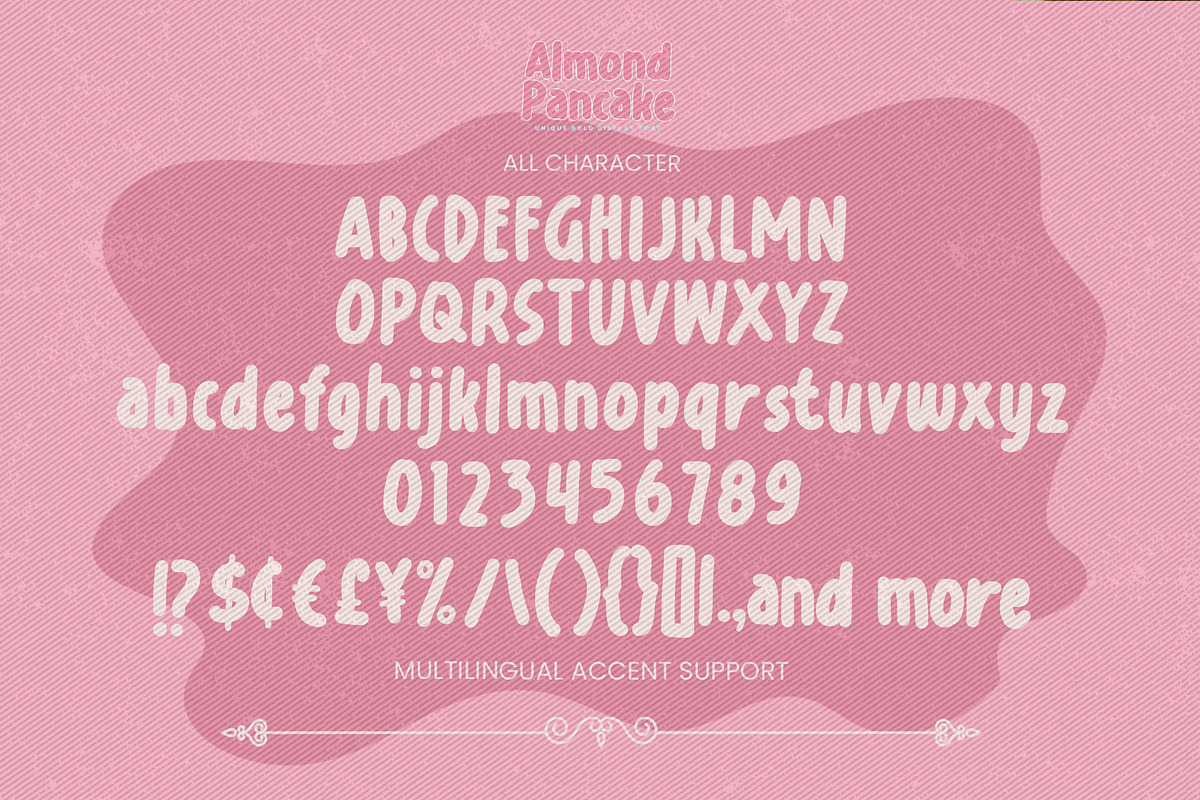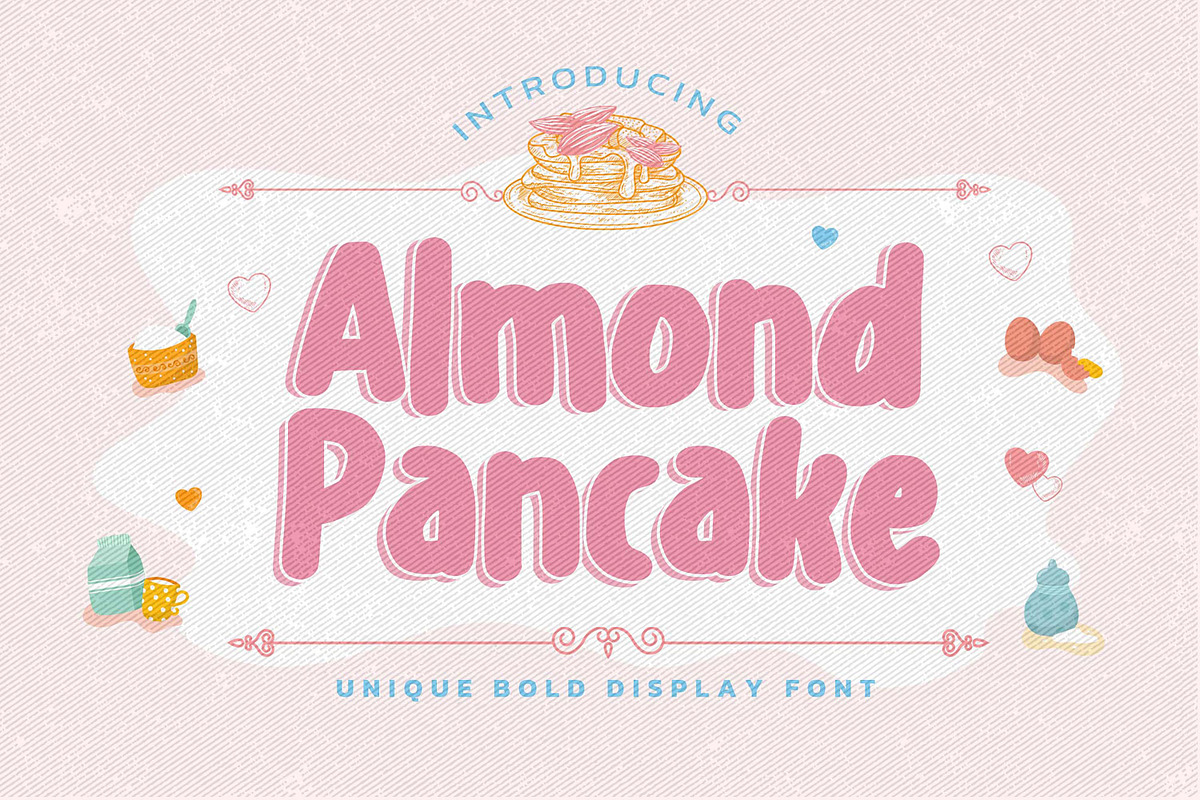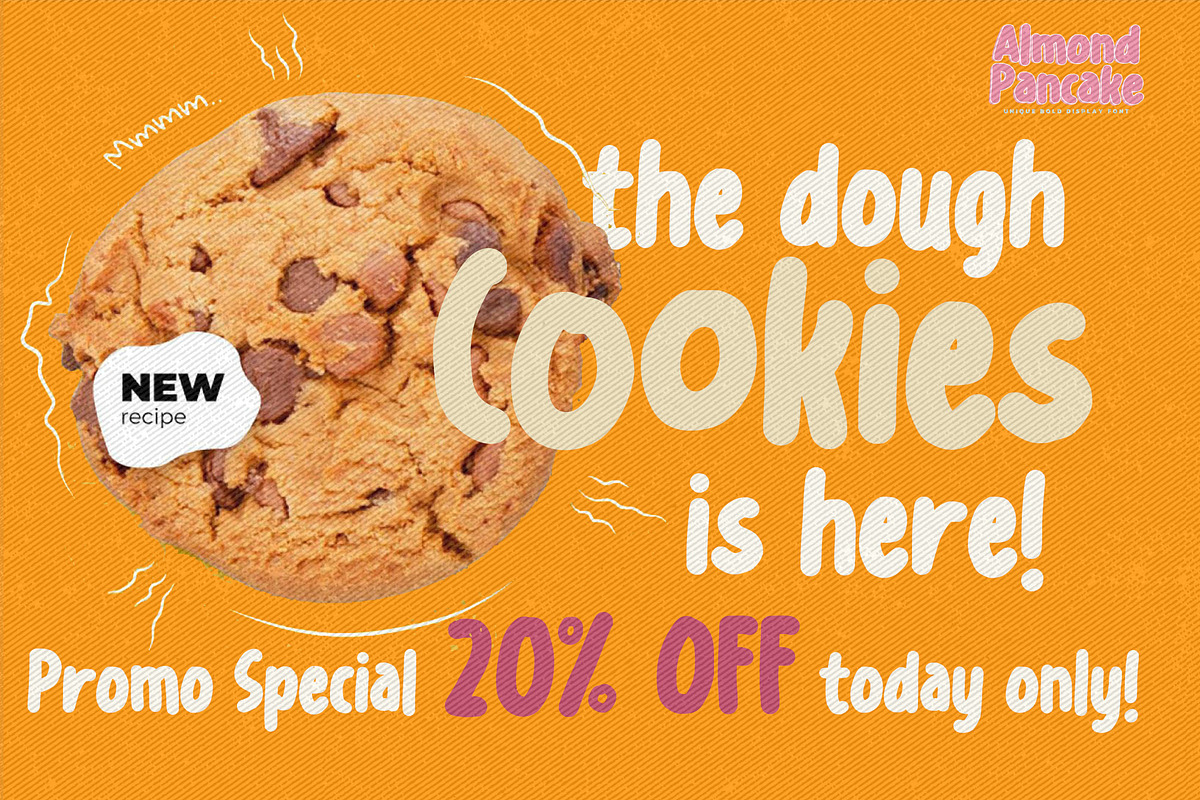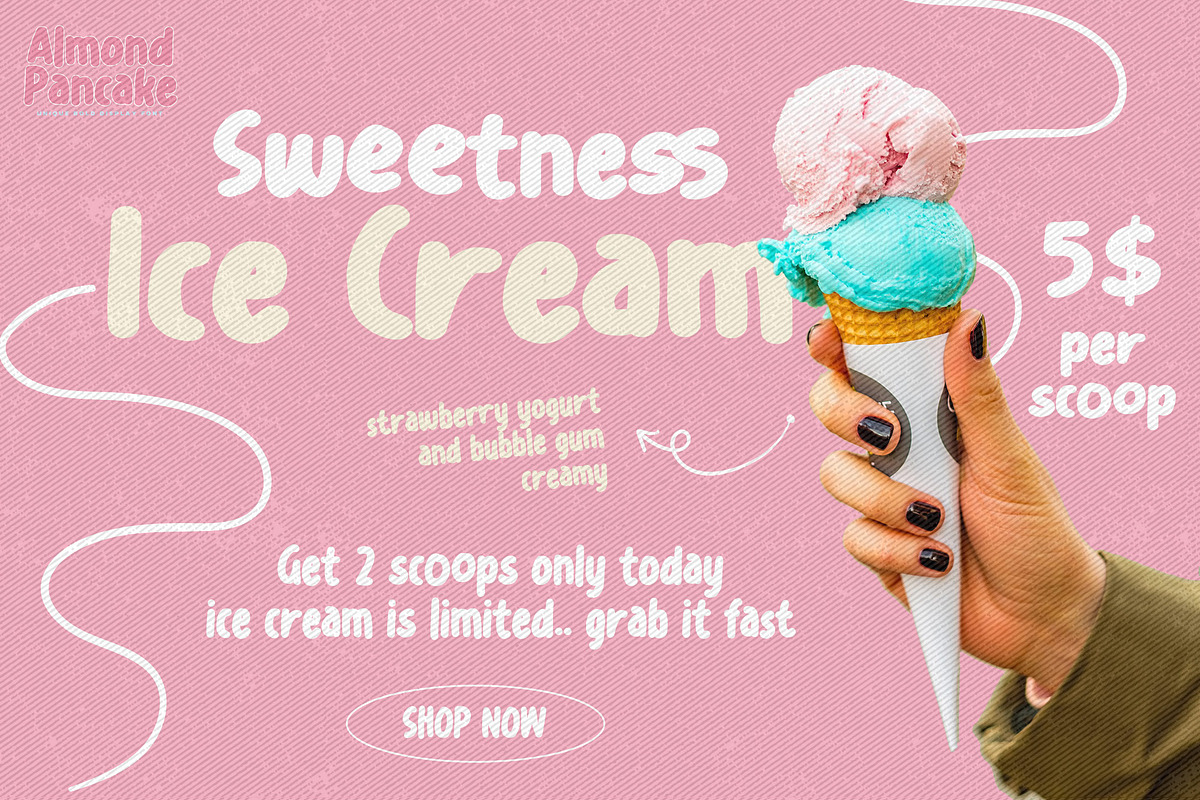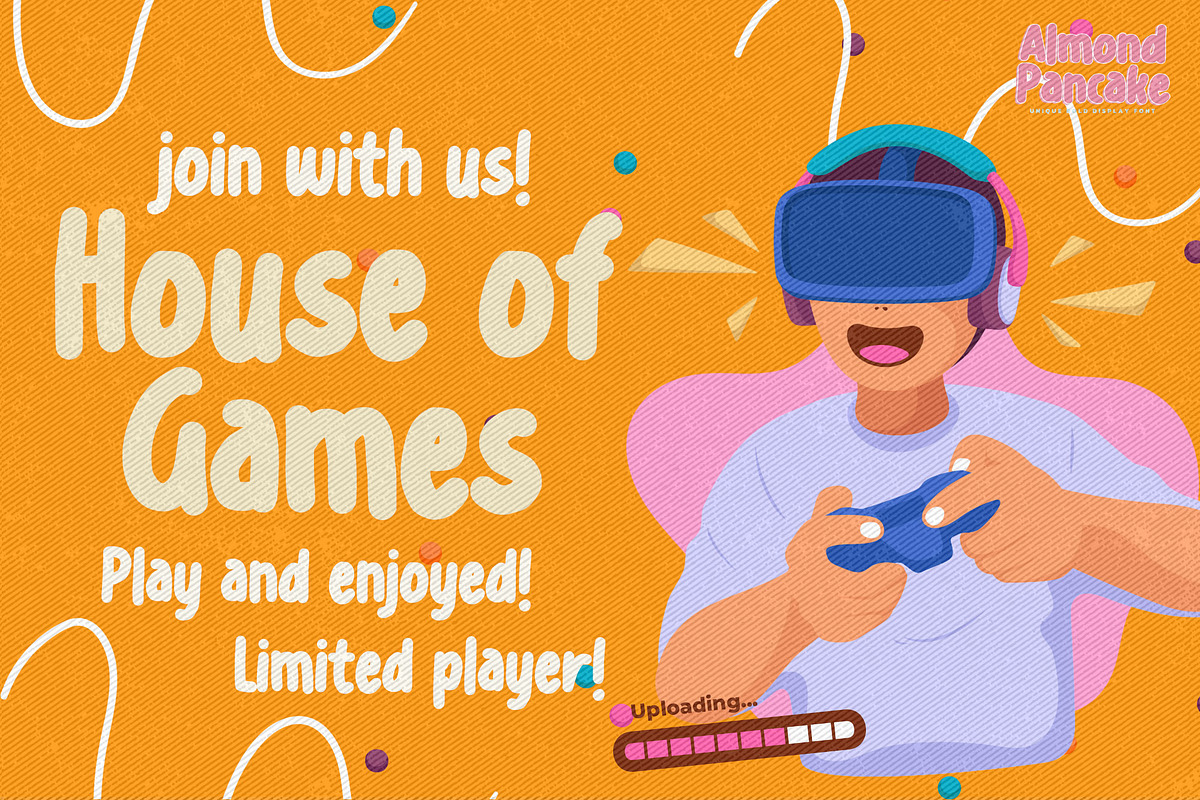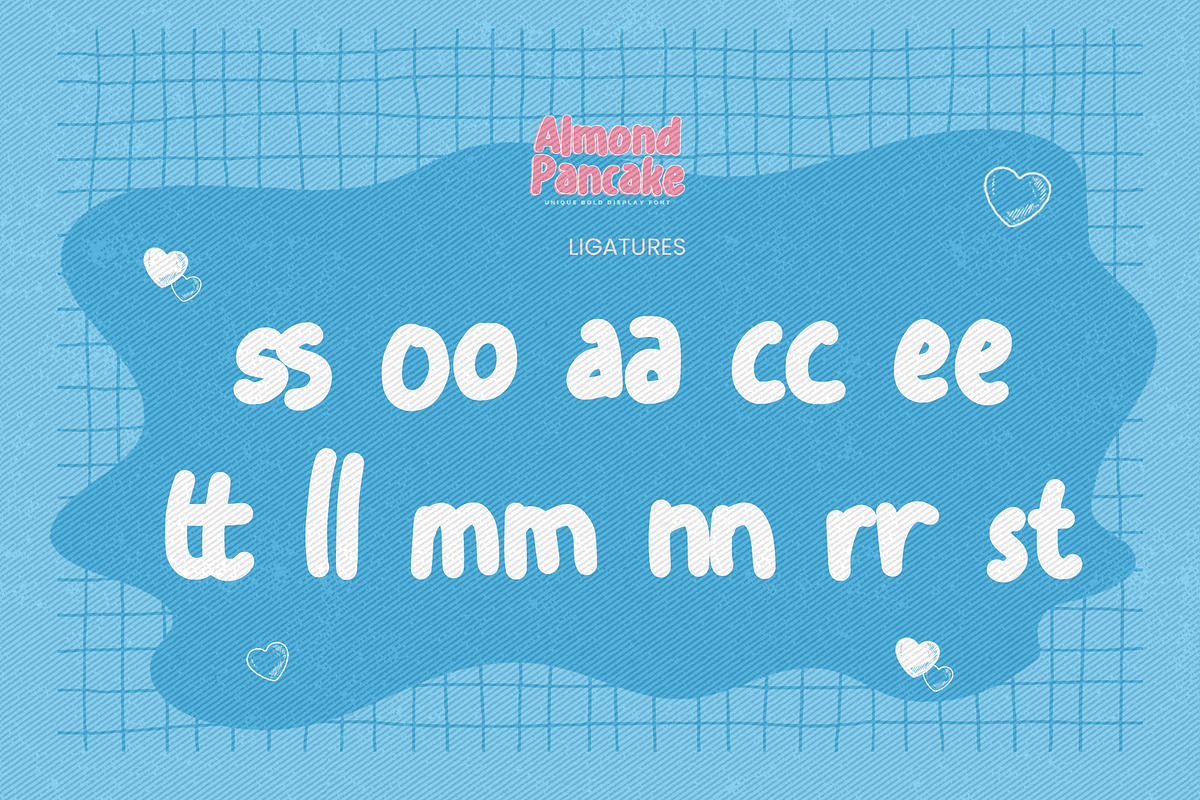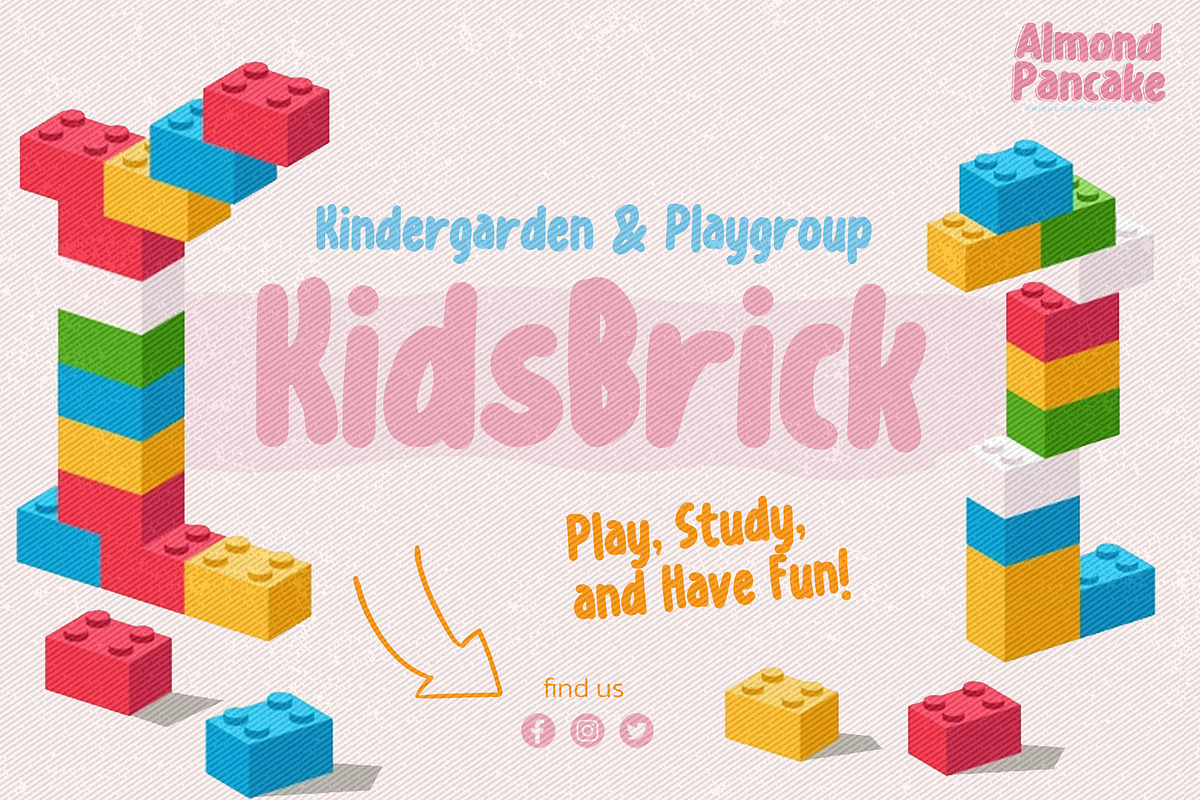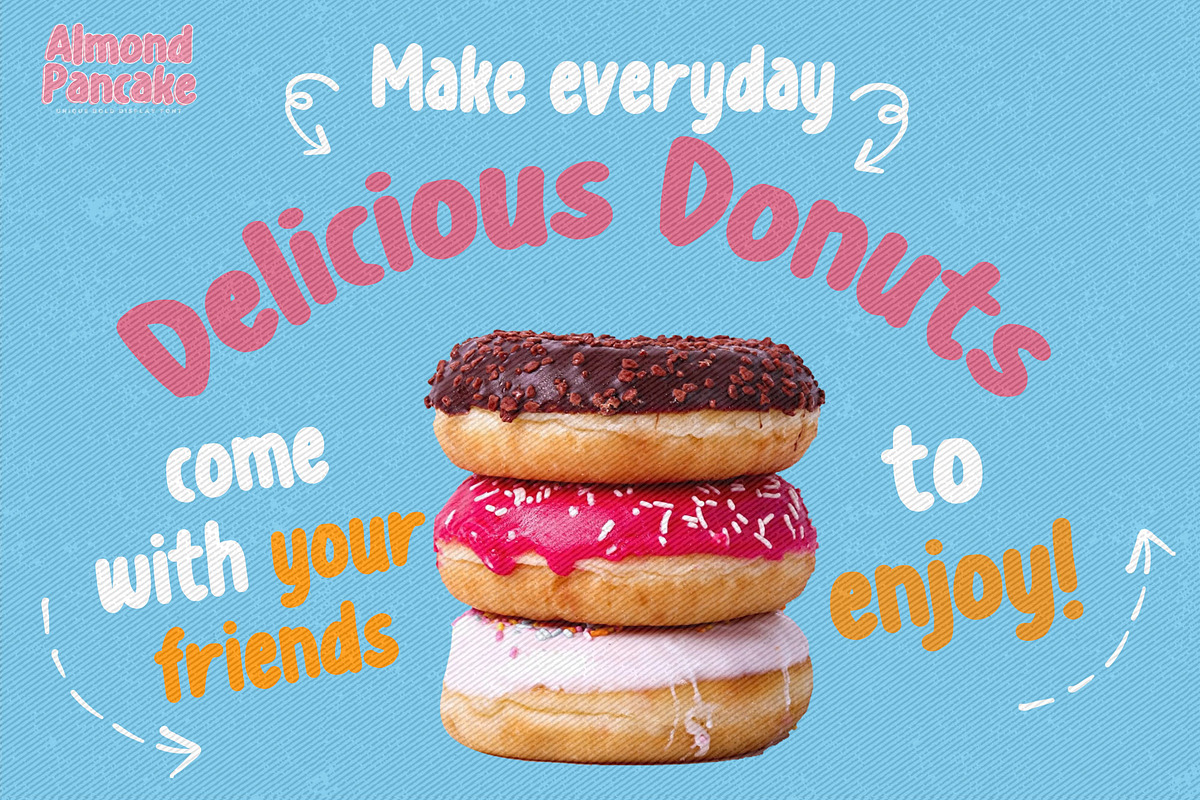
Almond Pancake - Unique Bold Display
Hello Everyone, Introduce our new collection Almond Pancake is a Unique Bold Display Font, Inspired from Modern logos of brands that have very strong characteristics, very suitable for posters,card to kids cute,and guaranteed to add a sweet touch to your next design,packaging, branding, logotype and more. This handmade font will make your design has a beautiful natural touch for each details. It is perfect for any design project as Invitation,logo, book cover, craft or any design purposes.
That is Almond Pancake has charming, authentic and relaxed characteristic more natural look to your text with a more natural look to your text. You can activate Ligature OpenType panel design more interesting. Almond Pancake is perfect for homeware designs,branding projects, Logo design, Quotes product packaging.
- Ligatures Glyphs
Fonts include multilingual support for; ä ö ü Ä Ö Ü